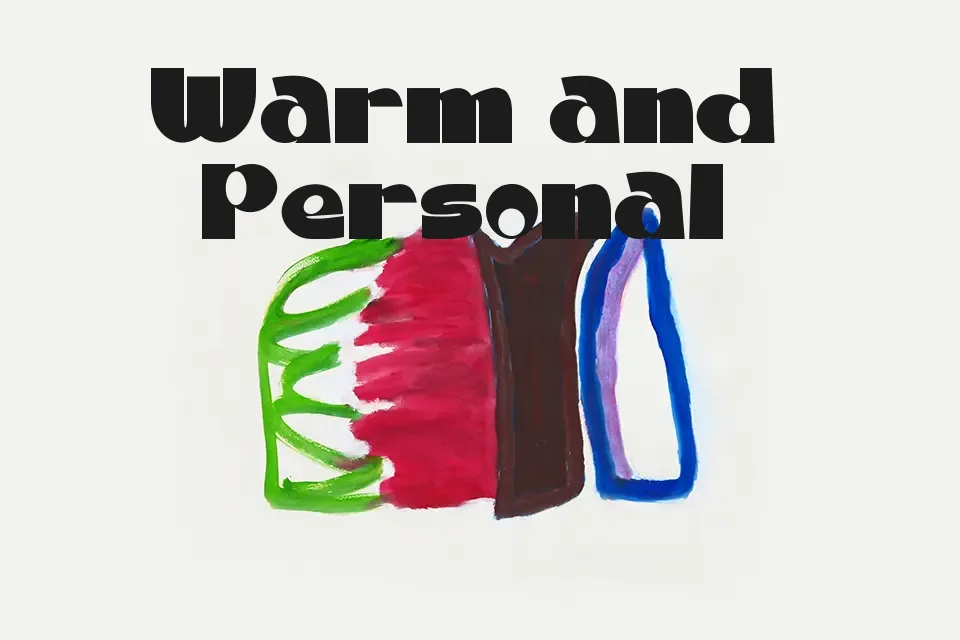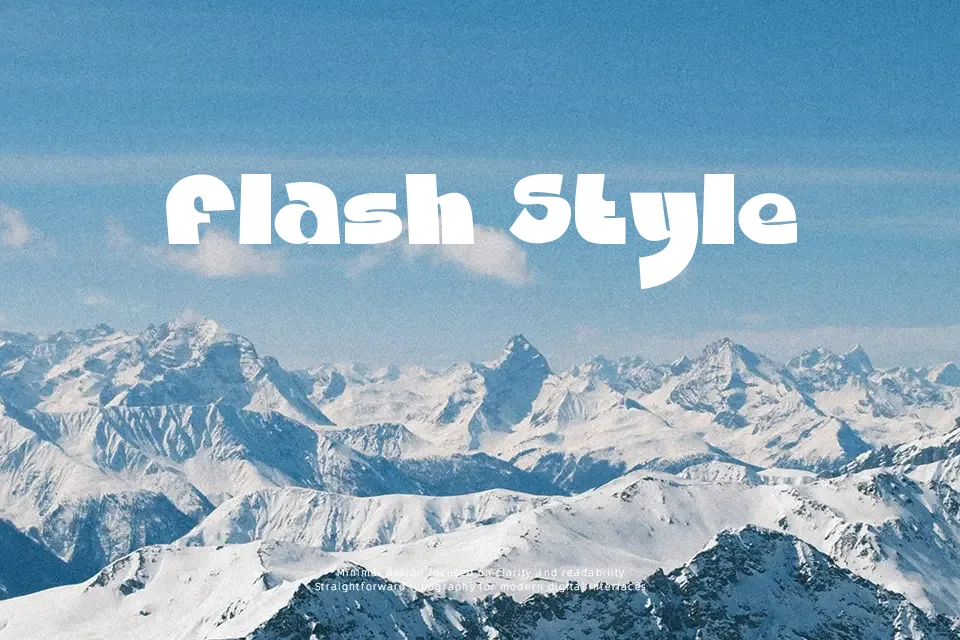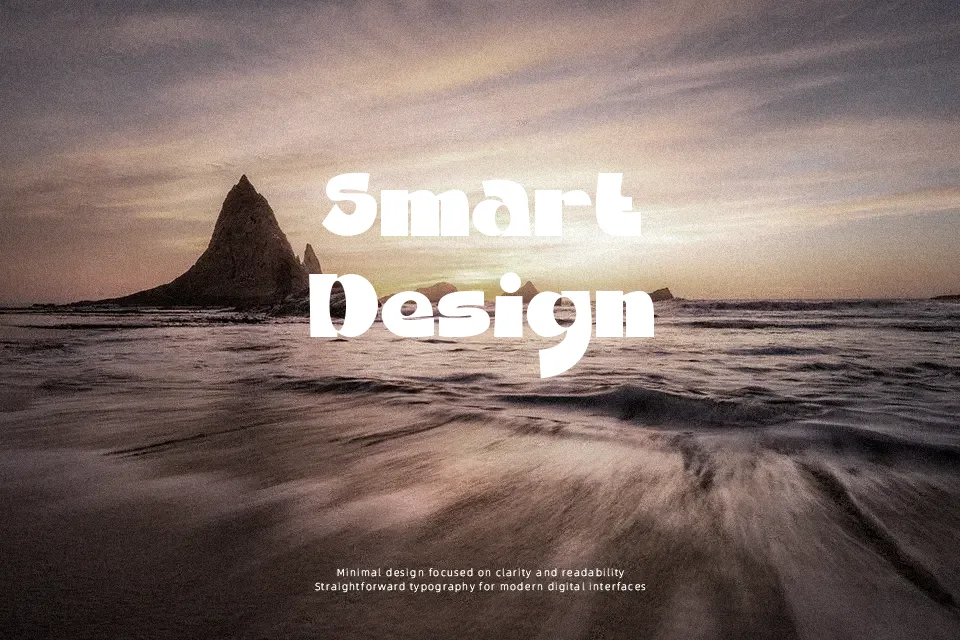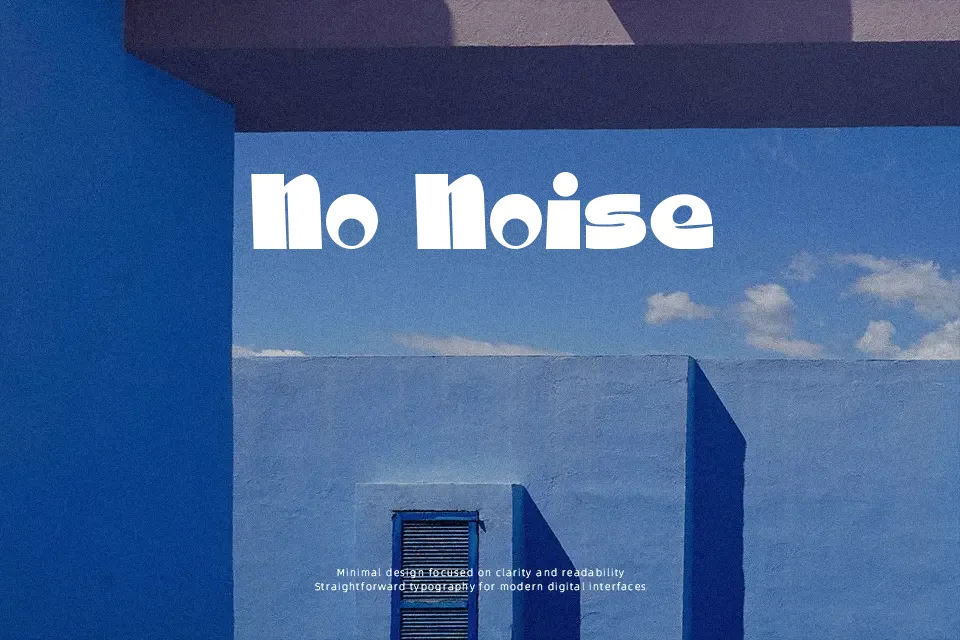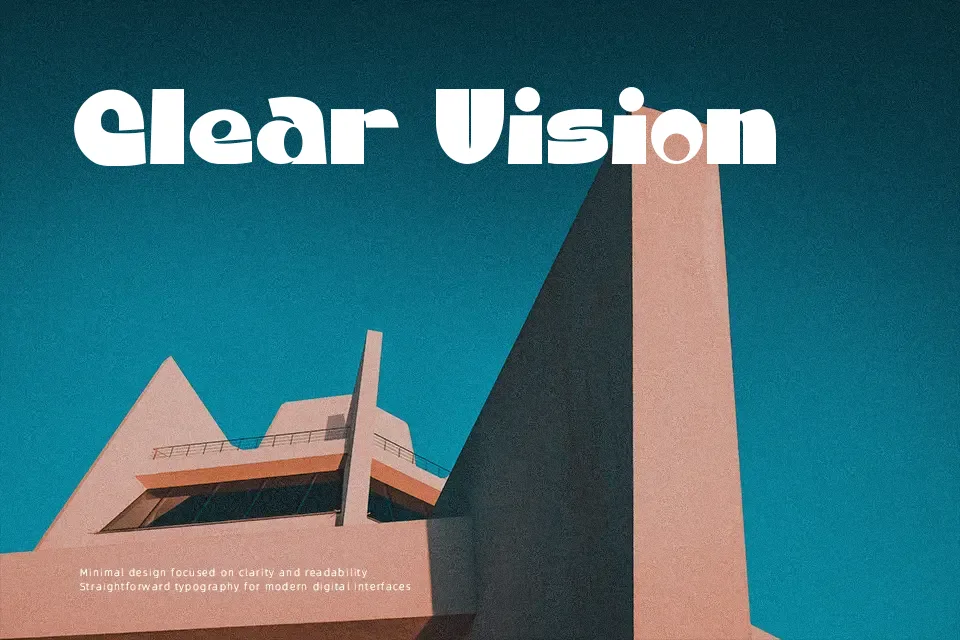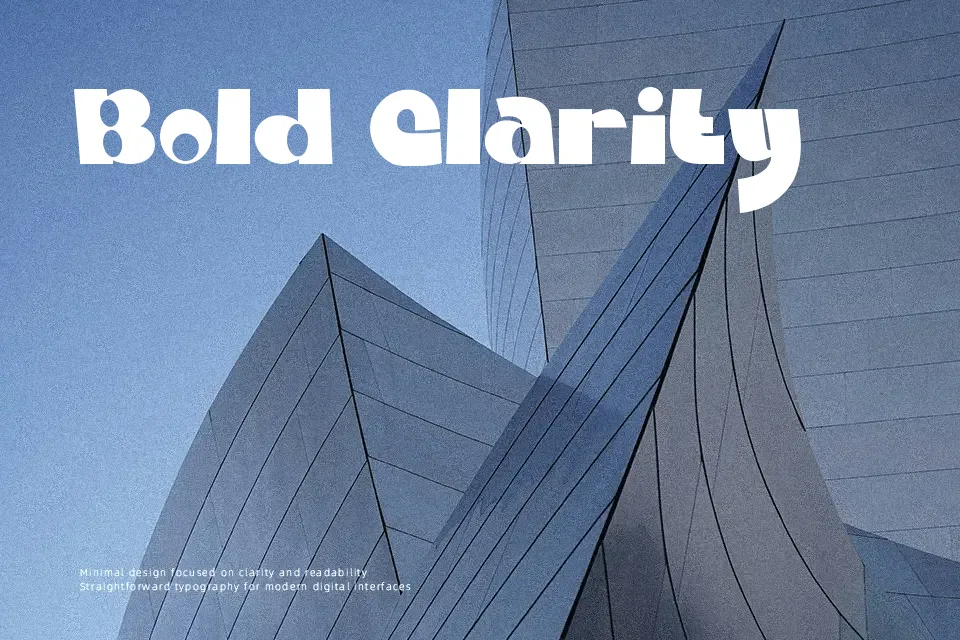
Round Block Font
Round Block Font is constructed with massively thick strokes and completely softened terminals, creating a solid yet approachable visual presence. The letterforms exhibit highly condensed inner counters and tight spacing, which helps maintain clarity in larger headlines by forming dense, cohesive word blocks. This heavy structure makes the typeface exceptionally well-suited for retro-inspired merchandise, vibrant music festival posters, and playful product packaging. However, the thick proportions and minimal negative space reduce continuous reading comfort, making it less suitable for long paragraphs or small-scale interfaces. The dense forms ultimately perform best when displayed at massive sizes, where their groovy, block-like geometry can truly dominate the layout.
vintage music posters,playful product packaging,retro apparel graphics,bold event flyers
long paragraph text,small interface labels,dense editorial layouts
Perfect for headline, kids, and music, with a bold and display style.